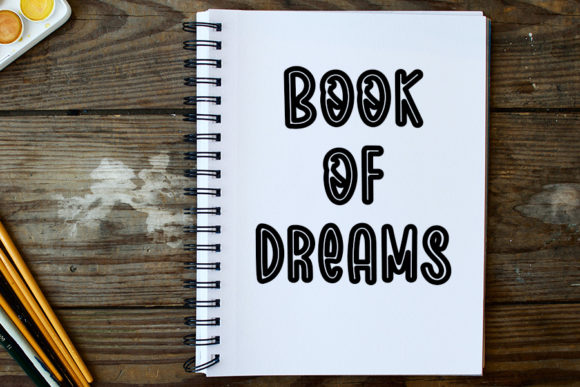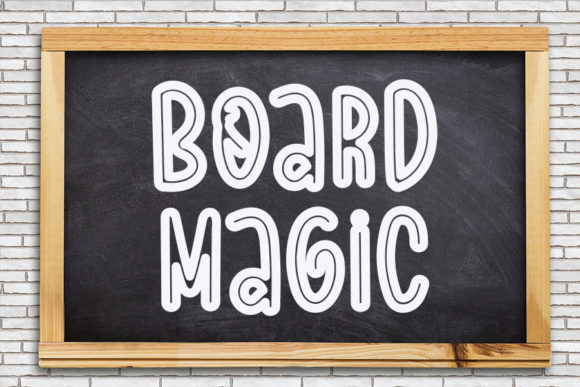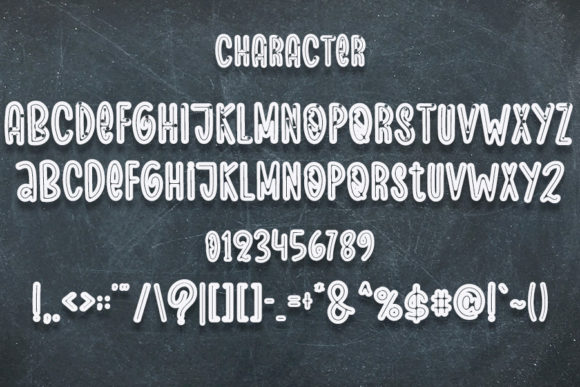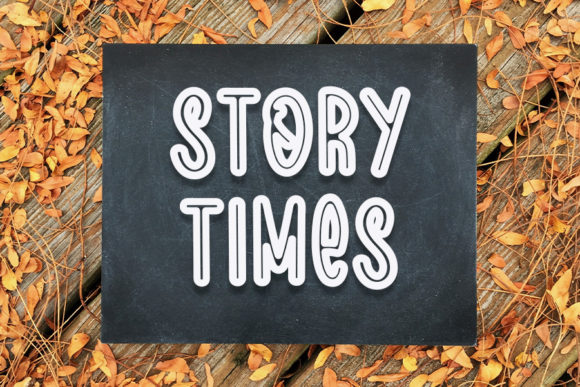
The Glowing Dance Font: A Designer’s New Best Friend
I still remember the design project that led me to discover the Glowing Dance font. I was working on a branding project for a dance studio, and I needed a font that would capture the energy and playfulness of their brand. After hours of scrolling through font libraries, I stumbled upon Glowing Dance, and it was love at first sight! ✨
This simple, all-round, and clean display font has since become a staple in my design toolkit, and I’m excited to share its awesomeness with you.
- ✨ Clean and Versatile Design: Glowing Dance is perfect for a wide range of design projects, from letterheads and titles to stationery and more.
- ✅ Ease of Use: The font is incredibly easy to read and works well in various contexts, making it a great choice for designers and non-designers alike.
- 💡 Original Look: The font’s unique design sets it apart from more traditional fonts, adding a touch of personality to any project.
While Glowing Dance is an excellent font, there are a few minor quirks to be aware of: 🤔
- ⚠️ Limited Use in Body Text: Due to its display nature, Glowing Dance might not be the best choice for lengthy body text. It’s perfect for headings, titles, and short paragraphs, but may not be as readable in longer texts.
- ⚠️ Glyph Limitations: While the font has a range of useful glyphs, it may not have every special character or symbol you need. Be sure to review the font’s capabilities before committing to a project.
The story behind Glowing Dance’s design is one of creativity and passion. According to its designer, the font was inspired by the world of dance and the beauty of movement. The goal was to create a font that would capture the energy and playfulness of dance, while also being clean and versatile. 💃
Q: What type of projects is Glowing Dance best suited for?
A: Glowing Dance is perfect for a wide range of design projects, including letterheads, titles, stationery, and more.
Q: Does Glowing Dance support OpenType features?
A: Yes, Glowing Dance supports OpenType features, including Stylistic Alternates and Glyphs.